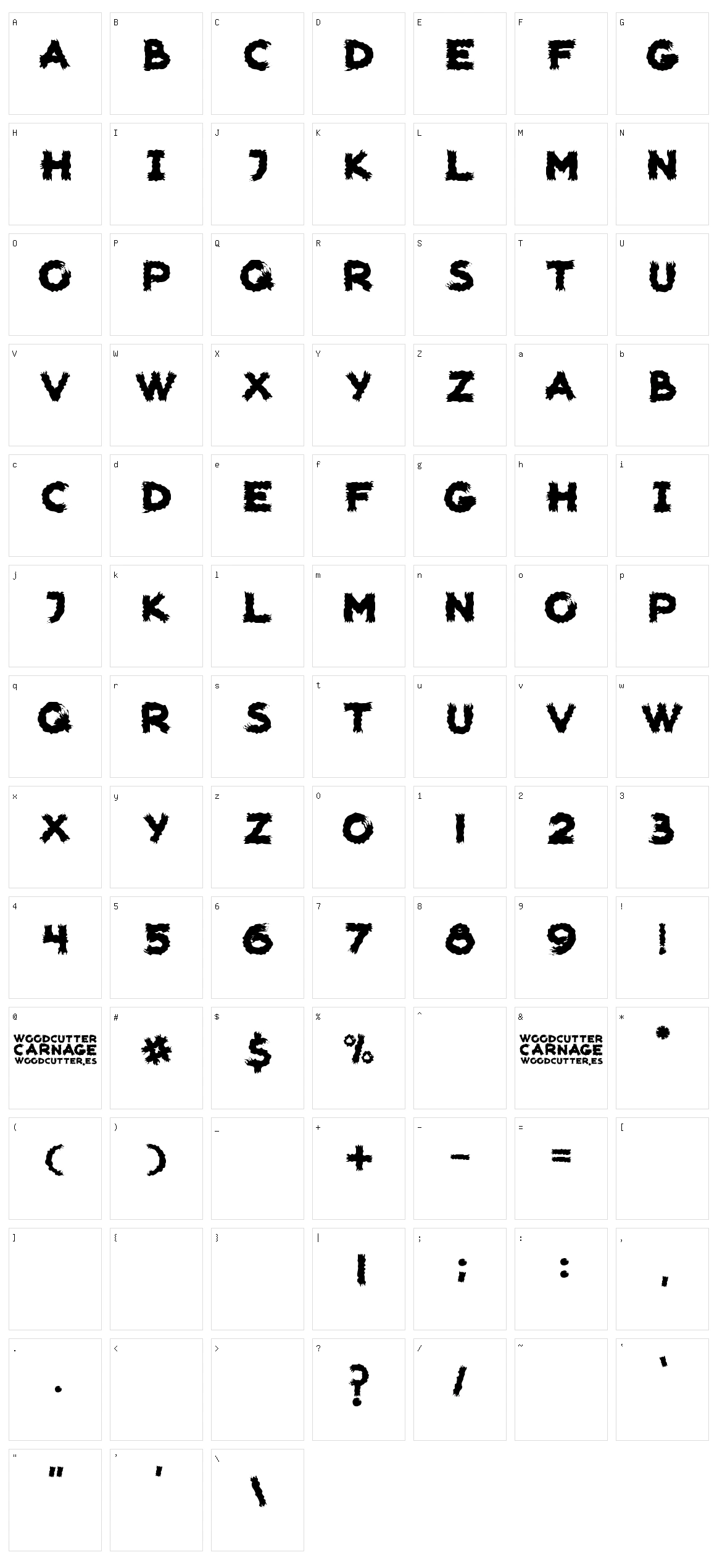
The free font Woodcutter Carnage is carefully designed by Woodcutter, showcasing a thoughtful balance of creativity and usability and falls under the Horror font style. When you download the ZIP file, it contains only 97.75 KB of font files, making it lightweight and quick to download. Please review the license details below to understand permitted usage and distribution rights. If license information is not available, we recommend using this font for personal projects only or contacting the author directly for commercial usage permissions.